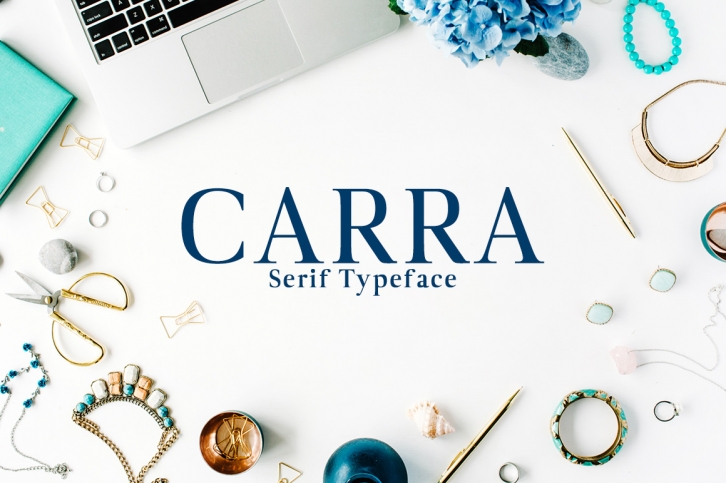
Carra is a posh serif typeface, minimal and cleanly made to be used in a large number of projects. Use Carra to add a unique and modern look and feel to your designs.